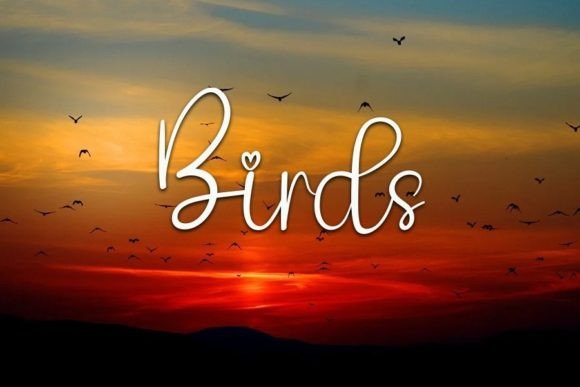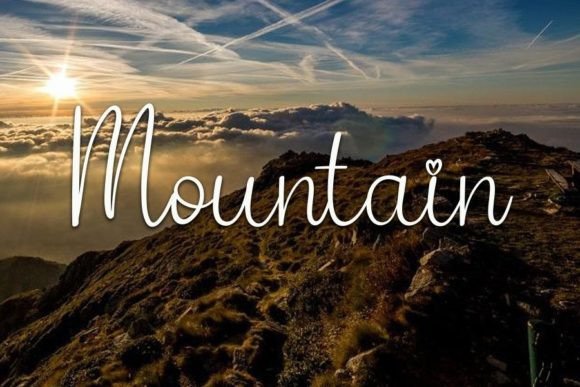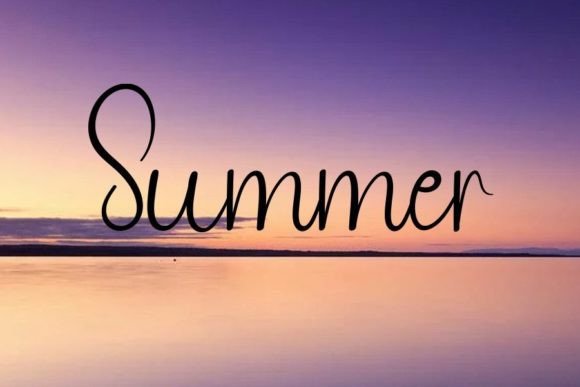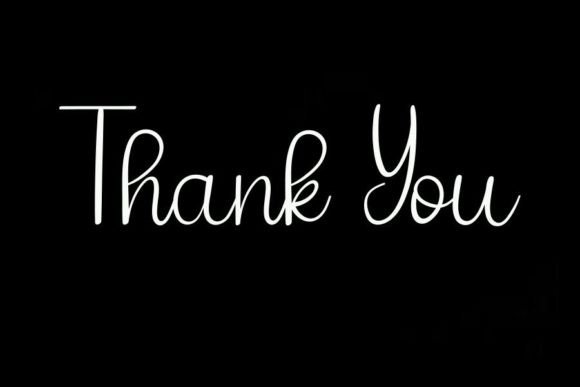
About Animal Font
“Animal” is a stylish and incredibly elegant script font that brings a touch of sophistication to a variety of design projects. With its graceful and refined appearance, this font looks stunning on wedding invitations, thank you cards, quotes, greeting cards, logos, business cards, and any other design that requires a handwritten touch.
The stylish and elegant qualities of “Animal” make it particularly well-suited for projects that demand a high level of sophistication and visual appeal. Imagine using this font on a wedding invitation where its graceful script adds a sense of romance and elegance to the celebration. Picture it on a business card, enhancing your professional branding with a touch of refined handwriting.
The versatility of “Animal” allows it to adapt seamlessly to different design contexts, making it a valuable asset for a range of creative projects. Its handwritten charm brings a personal touch to your designs, making them memorable and engaging.
As you incorporate “Animal” into your design projects, let its stylish and elegant script be the element that elevates your work. Whether you’re working on invitations, branding materials, or any other design that requires a touch of sophistication, “Animal” invites you to infuse your projects with its delightful and refined handwritten style.